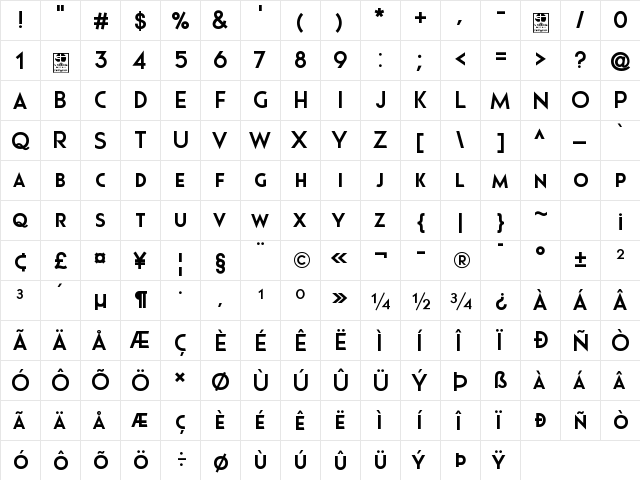
Pages Grotesque Demo Bold
| Foundry | StudioTypo |
| Designer | Mehmet Abac |
Design Context for Pages Grotesque Demo Typeface
Pages Grotesque Demo offers clean, dependable letterforms without strong stylistic allegiance, making it a practical choice for designers who need flexibility. Its bold stroke weight gives it real presence on the page.
Pro Tip: Pair Pages Grotesque Demo with a font of contrasting weight or personality to build a more expressive typographic hierarchy.